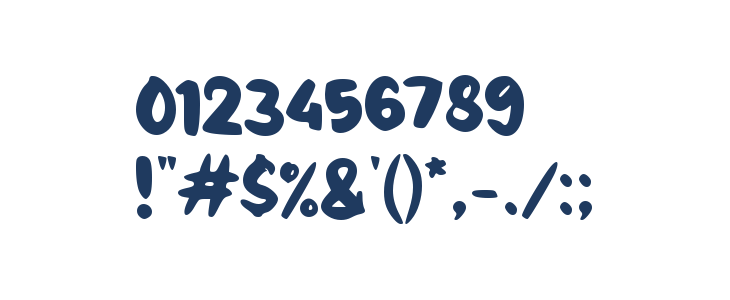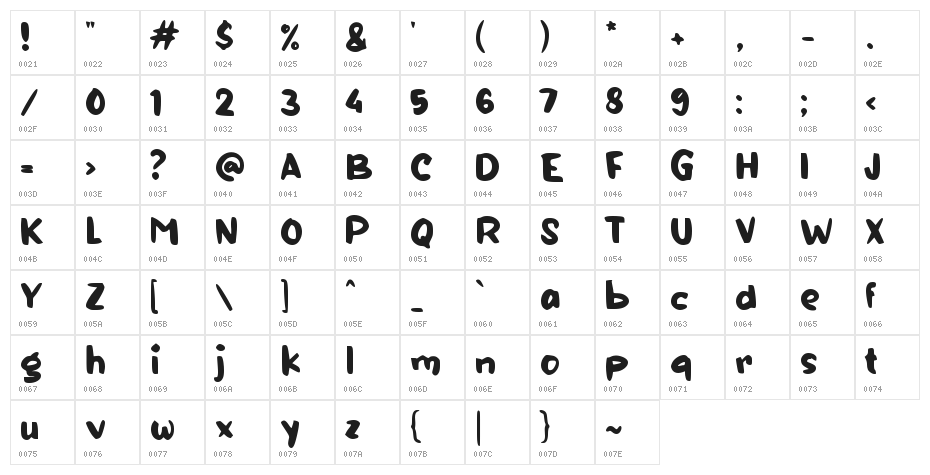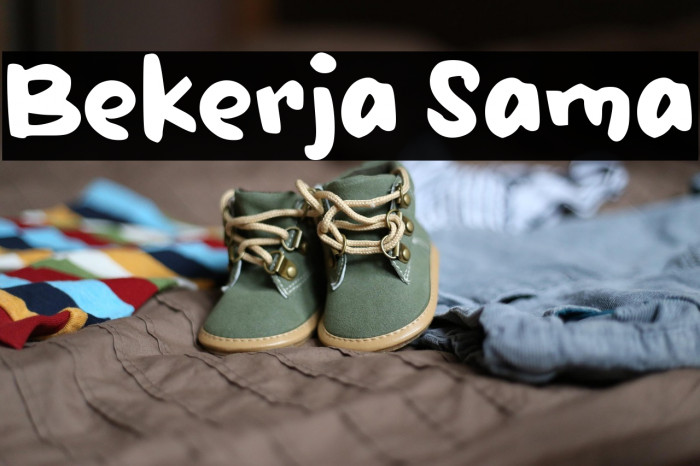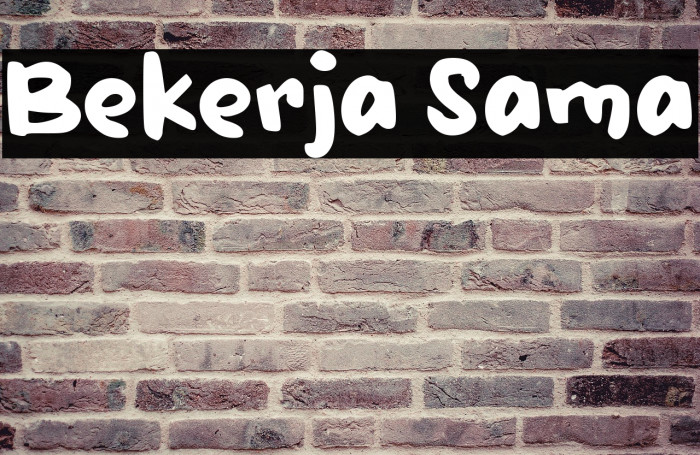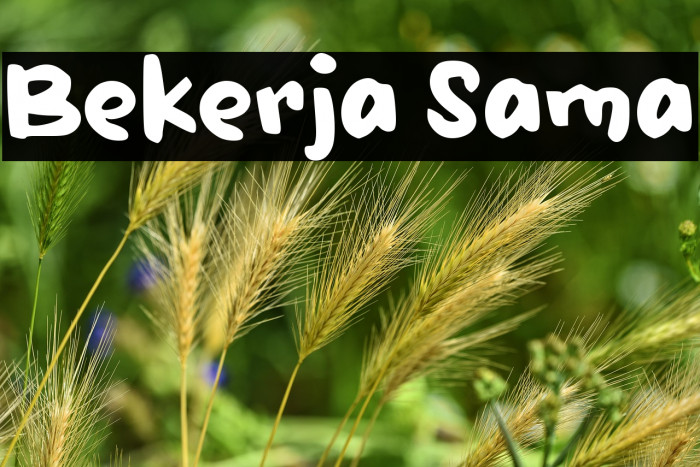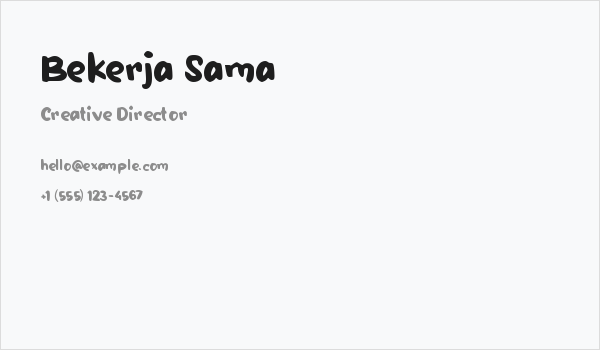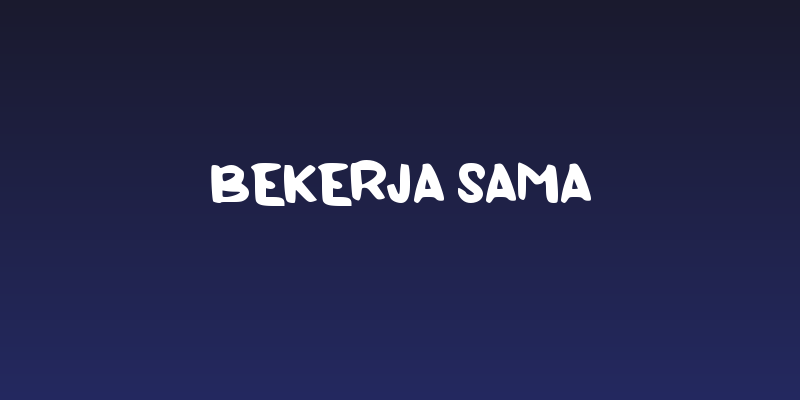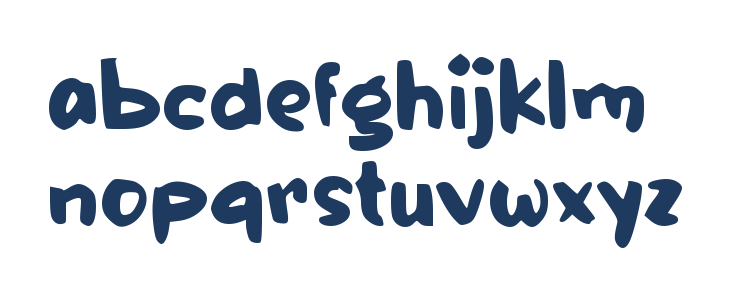
Bekerja Sama Font
Bekerja Sama Description
This playful and bold font features a hand-drawn aesthetic with rounded edges and a slightly irregular baseline, giving it a whimsical and casual feel. The characters are thick and substantial, providing a strong presence on the page. The uppercase and lowercase letters maintain a consistent style, with a slight tilt that adds to the informal charm. The numbers and special characters are equally bold and expressive, making them stand out. This font is perfect for projects that require a fun and approachable look, such as children's books, posters, or playful branding.
| Proposed Projects | Ideal for children's books, playful branding, posters, and casual invitations. |